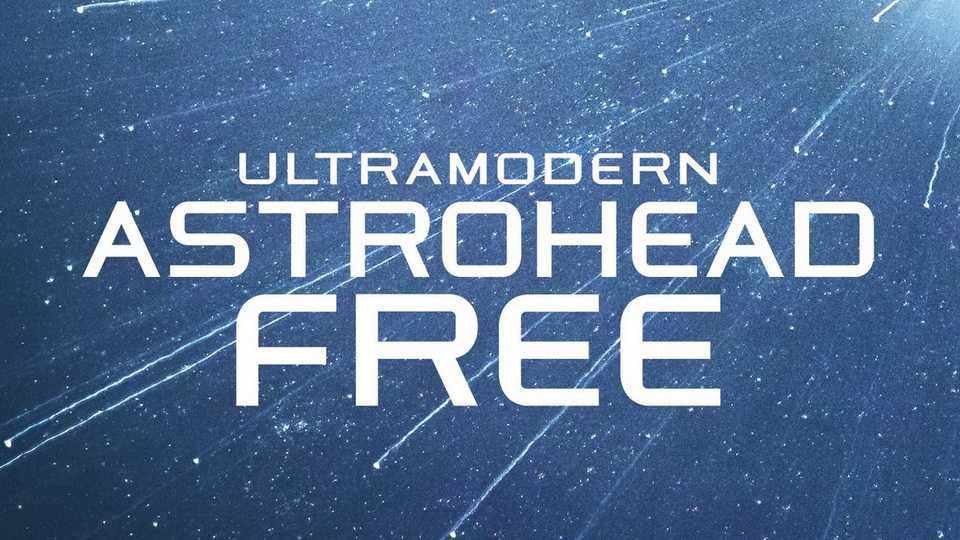
Download Astrohead font, a geometric sans serif typeface inspired by the early desktop systems, and video games. This style approach gives Astrohead a distinct futuristic, old sci-fi movie titles look.
Designer: Headfonts